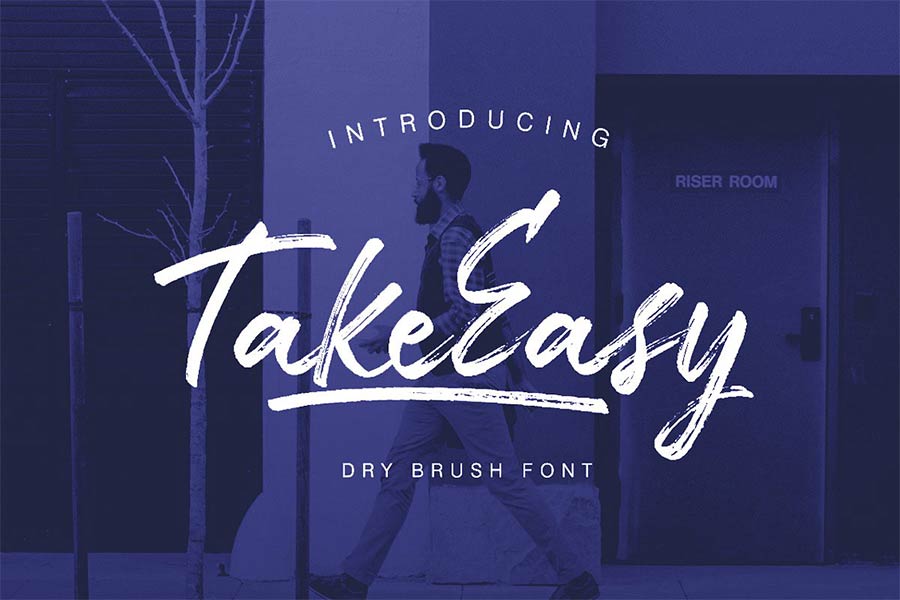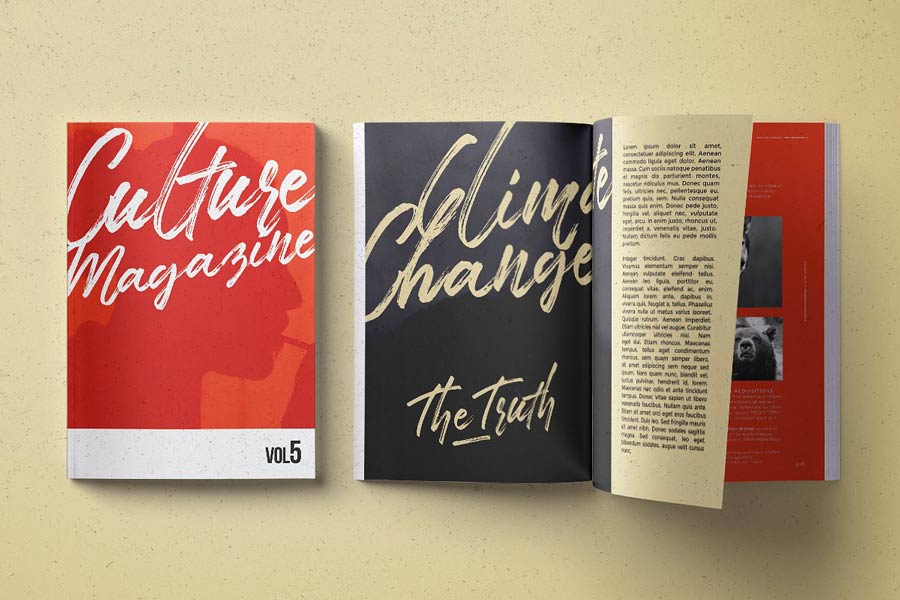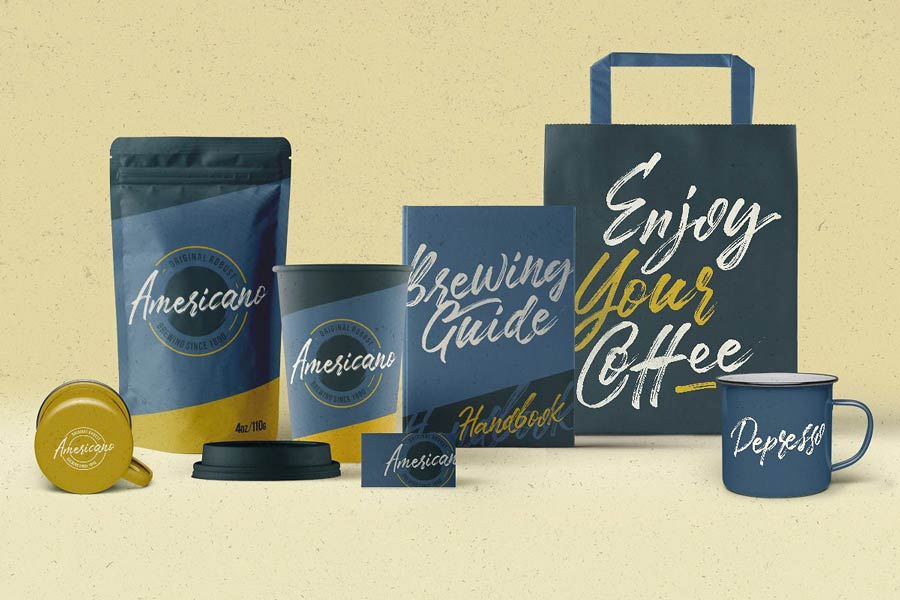
TakeEasy Brush is a manual hand brush font with interesting opentype feature. It was written with a tad dry brush as you can clearly see the effects of brushes, and the swashes of the letters are drawn towards a consistent angle which gives a neat visual sense.
TakeEasy Brush comes with opentype alternate ligatures, and also you can enable underline swashes by typing underscores in between letters, which is a unique approach. This font looks great on branding, posters, prints, invitational cards and many more. You may download to try this font with your personal projects.